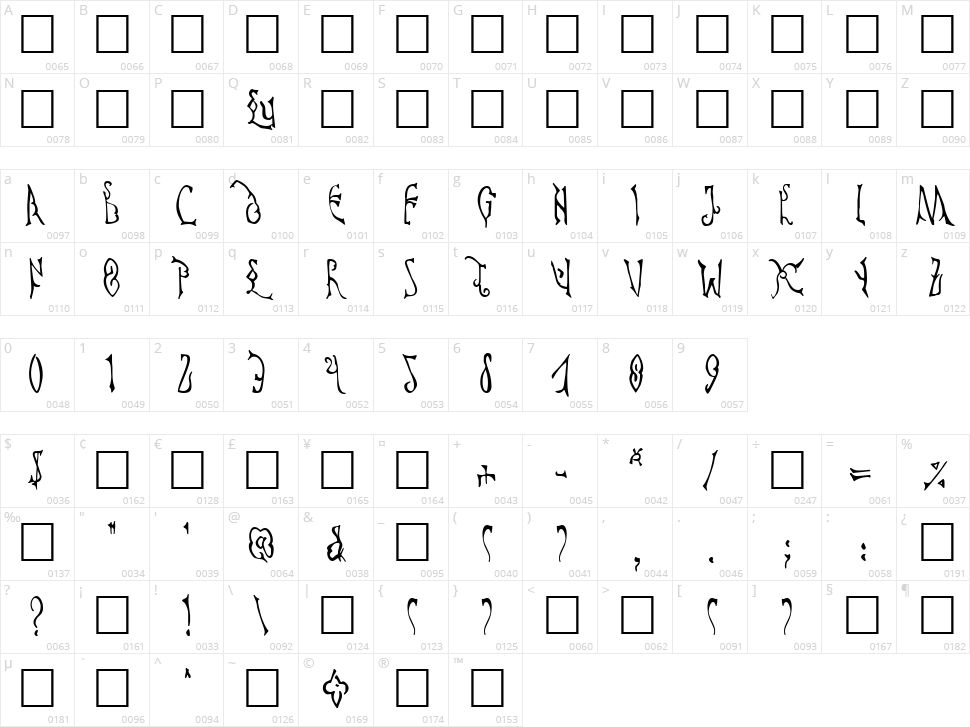
NOTICE: This font only features lower case letters - there
also is a "Qu" symbol -- this can be accessed using the capital
Q. The font is patterned after an inscription found in North Africa,
and was designed by R. Ben Madison.
| Designer Name: | Andy Krahling |